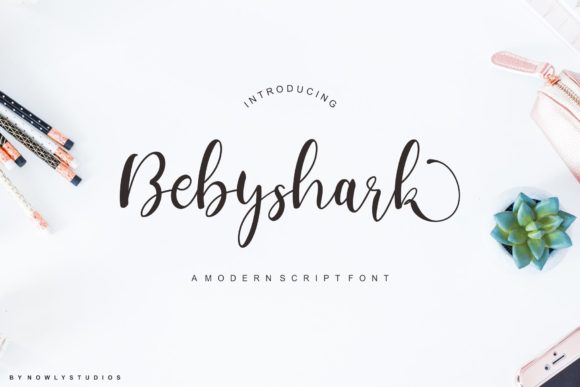
In an era of endless digital communication, where words dance across screens and screens, there's a font that pirouettes with grace and charisma: Bebyshark. It's not just a font; it's an expression of your boundless creativity, a melody that sings through your designs.
Bebyshark is a creation of the renowned nowlystudios, a name synonymous with excellence in the world of typography. It's a script font, an art form where each letter dances with the next, creating a symphony of visual harmony.
Step into Bebyshark's enchanting realm and discover a world where elegance and charm reign supreme. Its curves flow with the grace of a ballerina, its lines intertwine like vines in a secret garden, and its overall demeanor exudes a delightful playfulness that will captivate your audience.
With Bebyshark as your creative companion, you'll find endless possibilities to unleash your imagination. It's the perfect choice for crafting logos that shimmer with sophistication, branding that resonates with warmth, and invitations that evoke a sense of occasion.
Whether you're a seasoned designer or just starting to explore the world of digital artistry, Bebyshark will be your guiding light. Its user-friendly nature makes it a joy to work with, while its versatility allows you to explore a myriad of creative avenues.
Don't let ordinary fonts stifle your creativity. Embrace Bebyshark, and together, you'll create designs that are more than just visually appealing; they'll be unforgettable experiences that leave an indelible mark on your audience.
Join the Bebyshark revolution today, and embark on a journey where every letter becomes a brushstroke of your creative genius.